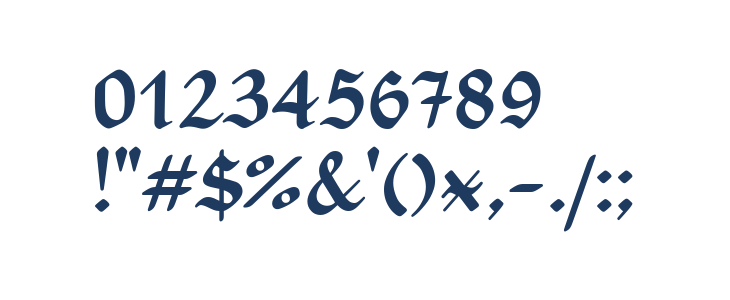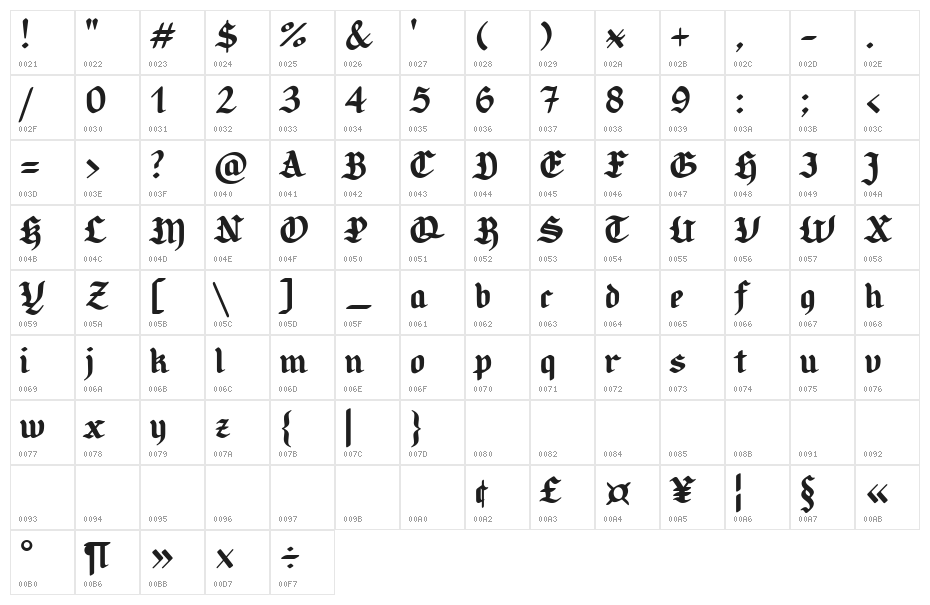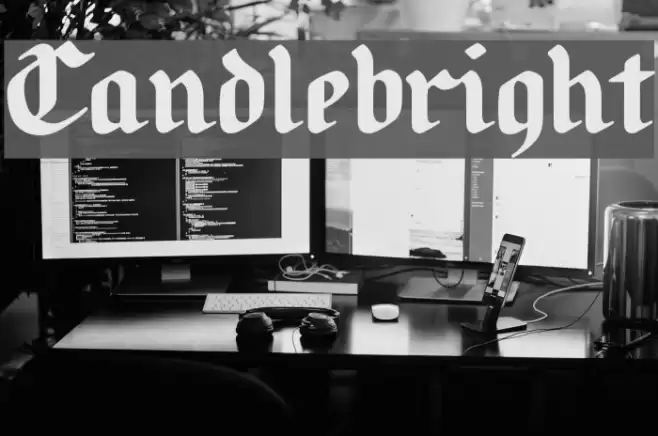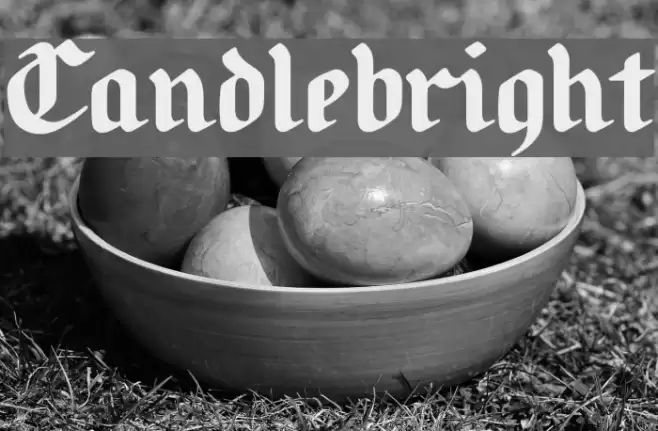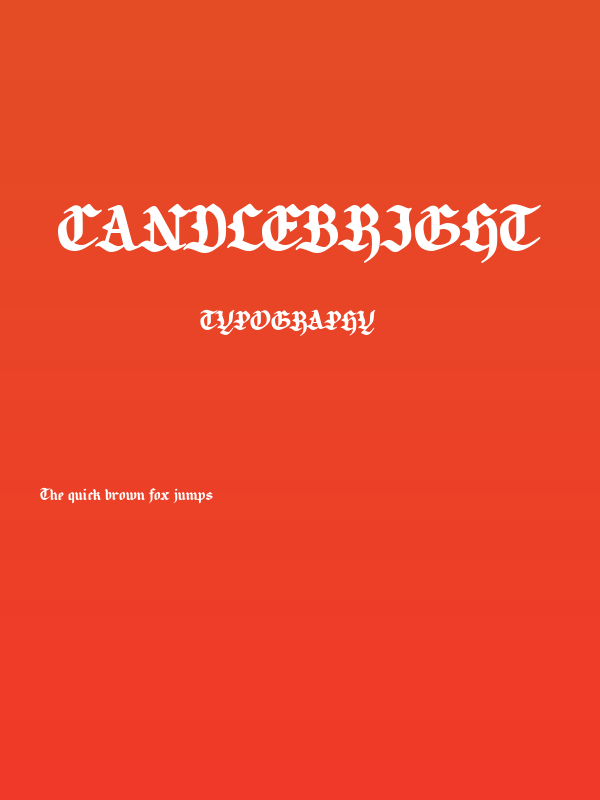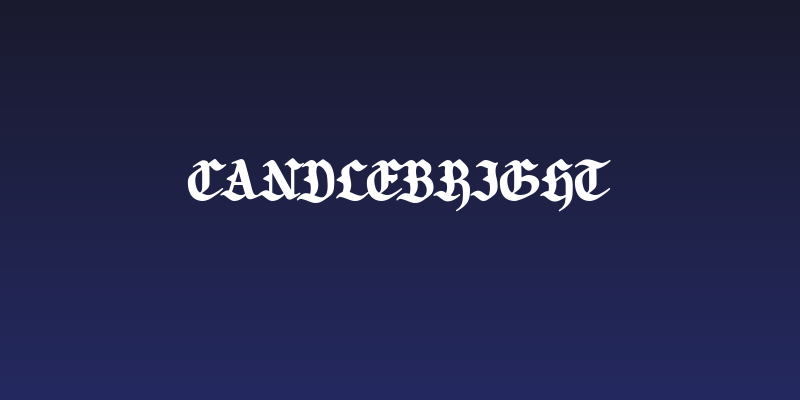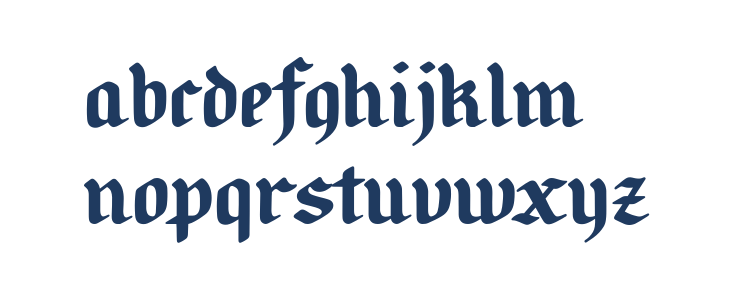
Candlebright Font
Candlebright Description
This font exhibits a classic blackletter style, characterized by its intricate and ornate design. The letters are bold and angular, with sharp edges and a distinct medieval aesthetic. The uppercase letters are particularly elaborate, featuring dramatic flourishes and pointed serifs. The lowercase letters maintain the same gothic influence, with a slightly more subdued appearance. The numerals and special characters are consistent with the overall style, adding to the font's cohesive look. This font is ideal for projects that require a historical or traditional feel, offering a sense of elegance and formality.
| Proposed Projects | Suitable for historical documents, wedding invitations, certificates, and branding that requires a traditional or gothic touch. |